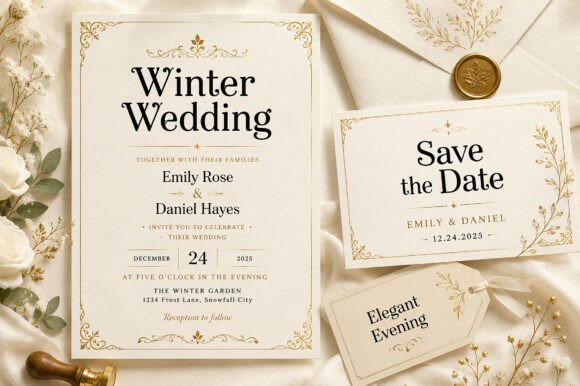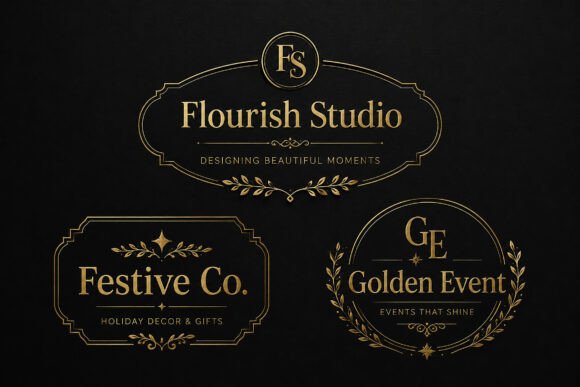
Introduction to Festive Flourish Font
Introducing Festive Flourish, an elegant and sophisticated serif display font designed to bring timeless beauty to your creative projects.
With its graceful curves, refined letterforms, and classic festive charm, this typeface is perfect for holiday branding, wedding invitations, luxury packaging, editorial designs, greeting cards, logos, and premium event materials Whether you’re creating a stunning Christmas card, an elegant wedding suite, a boutique brand identity, or a seasonal marketing campaign, Festive Flourish delivers a luxurious and memorable look with effortless style.
Why Choose Festive Flourish Font?